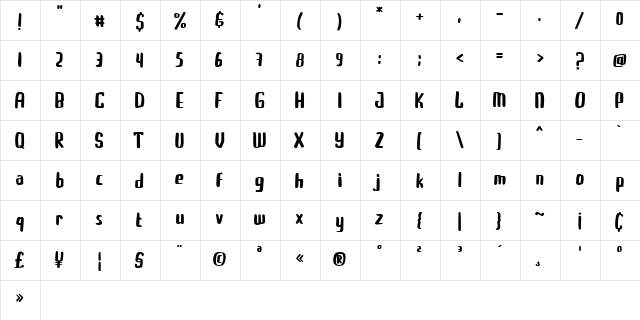
Buggiel Regular
| Foundry | Weape Studio |
| Designer | Wahyu Andi |
Design Context for Buggiel Typeface
Buggiel takes a measured approach to typography — its balanced proportions and neutral character make it a reliable workhorse for both digital and print work.